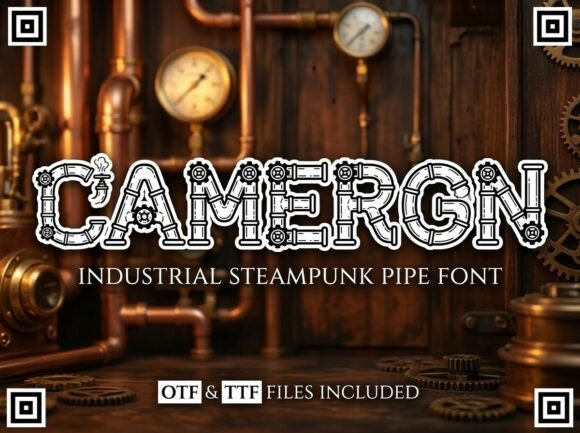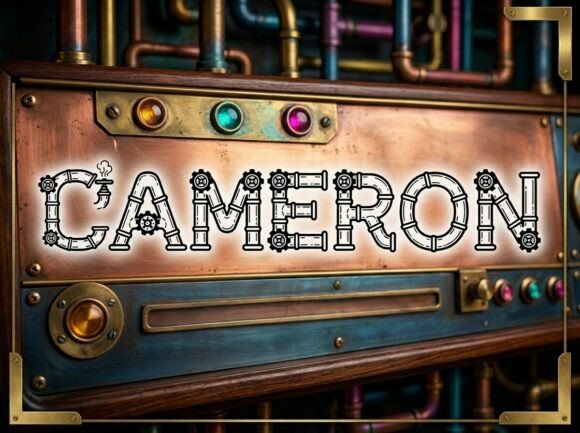
Introducing Cameron Font: The Ultimate Display Font for Industrial-Age Inspired Designs
Are you looking for a font that can add a touch of rugged elegance to your designs? Look no further than Cameron, a high-detail display font that celebrates the beauty of the industrial age. With its unique “mechanical” letterforms constructed from weathered pipes, rotating gears, and vintage pressure gauges, Cameron is the perfect choice for designers and crafters who want to create stunning, industrial-vintage inspired designs.
The Inspiration Behind Cameron Font
Cameron font is inspired by the industrial age, an era marked by the use of steam power, iron, and machinery. The font’s creator aimed to capture the essence of this era by designing letterforms that resemble mechanical components. The result is a font that exudes a “steam-and-iron” soul and architectural rhythm, making it perfect for designs that require a touch of industrial chic.
Key Features of Cameron Font
Cameron font boasts several key features that make it stand out from other display fonts. Some of its notable features include:
• High-detail letterforms: Each letterform in Cameron font is intricately designed to resemble mechanical components, such as weathered pipes, rotating gears, and vintage pressure gauges.
• Mechanical aesthetic: The font’s mechanical aesthetic gives it a unique, industrial-vintage look that is perfect for designs that require a touch of rugged elegance.
• Architectural rhythm: Cameron font features an architectural rhythm that makes it perfect for designs that require a sense of structure and balance.
Use Cases for Cameron Font
Cameron font is a versatile display font that can be used for a wide range of design projects. Some of its most popular use cases include:
• Independent craft brewery branding: Cameron font is a popular choice for craft brewery branding due to its industrial-vintage aesthetic, which evokes the feeling of a bygone era.
• Boutique escape room identities: The font’s mechanical aesthetic and architectural rhythm make it perfect for boutique escape room identities that require a touch of industrial chic.
• Steampunk-themed event posters: Cameron font is a natural fit for steampunk-themed event posters, as its industrial-vintage aesthetic perfectly captures the essence of the steampunk genre.
• Cinematic “industrial-vintage” digital headers: The font’s high-detail letterforms and mechanical aesthetic make it perfect for cinematic “industrial-vintage” digital headers that require a touch of rugged elegance.
Why Choose Cameron Font?
So why choose Cameron font for your next design project? Here are just a few reasons:
• Unique aesthetic: Cameron font boasts a unique, industrial-vintage aesthetic that sets it apart from other display fonts.
• High-quality design: The font is meticulously designed to ensure that each letterform is of the highest quality, making it perfect for designs that require attention to detail.
• Versatility: Cameron font is a versatile display font that can be used for a wide range of design projects, from craft brewery branding to steampunk-themed event posters.
In conclusion, Cameron font is a high-detail display font that is perfect for designers and crafters who want to create stunning, industrial-vintage inspired designs. With its unique mechanical aesthetic, architectural rhythm, and high-quality design, Cameron font is the premier choice for a wide range of design projects. Whether you’re looking to create a craft brewery brand, a boutique escape room identity, or a steampunk-themed event poster, Cameron font is the perfect choice.